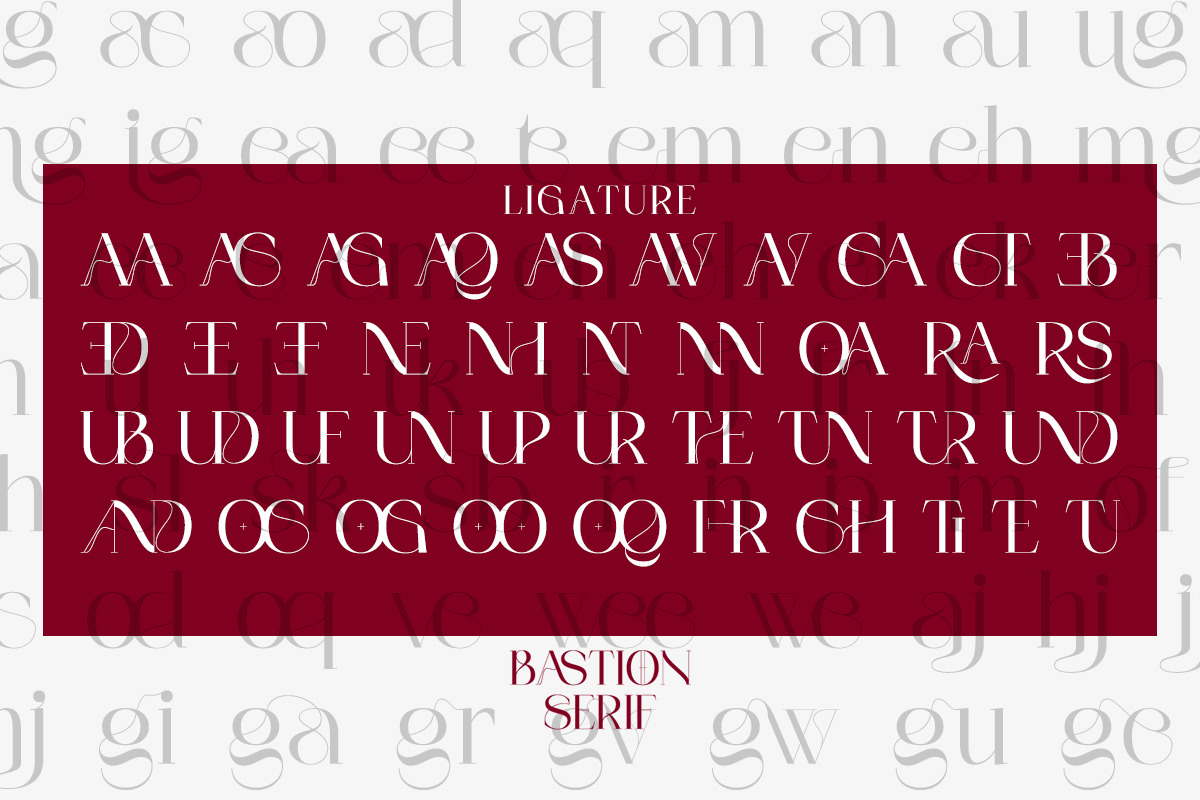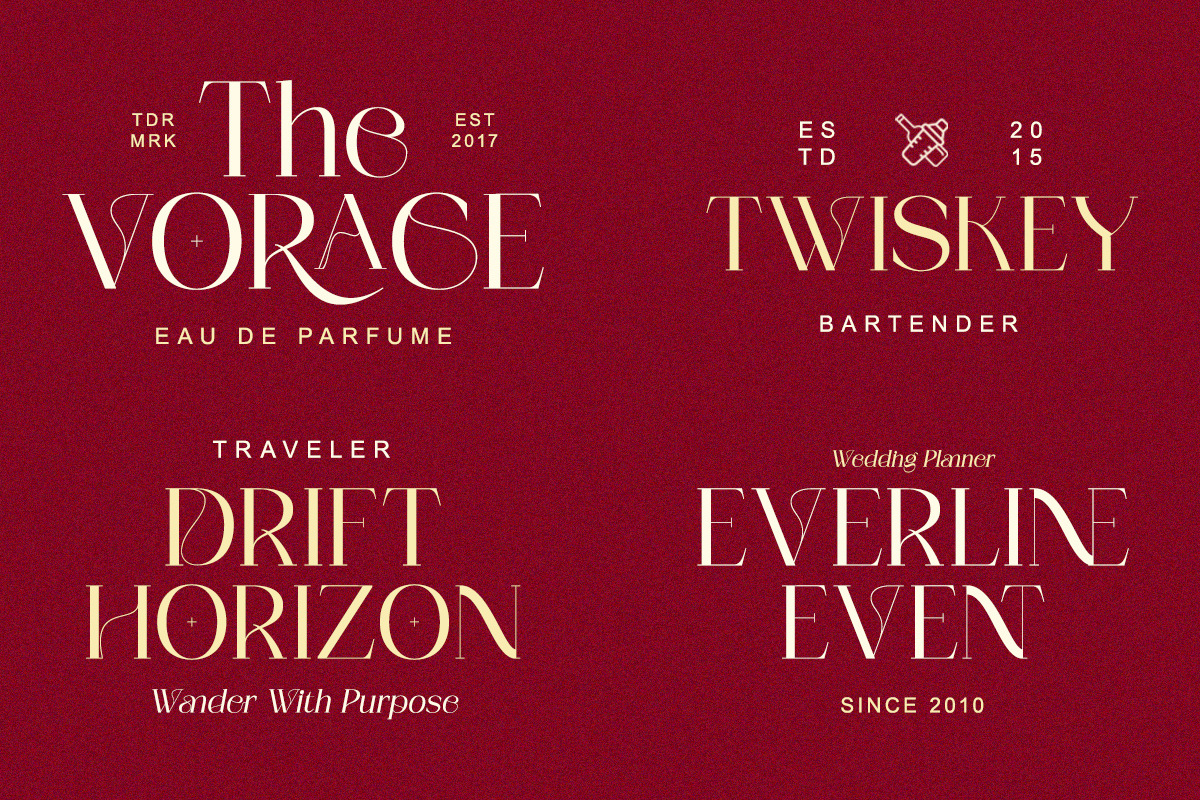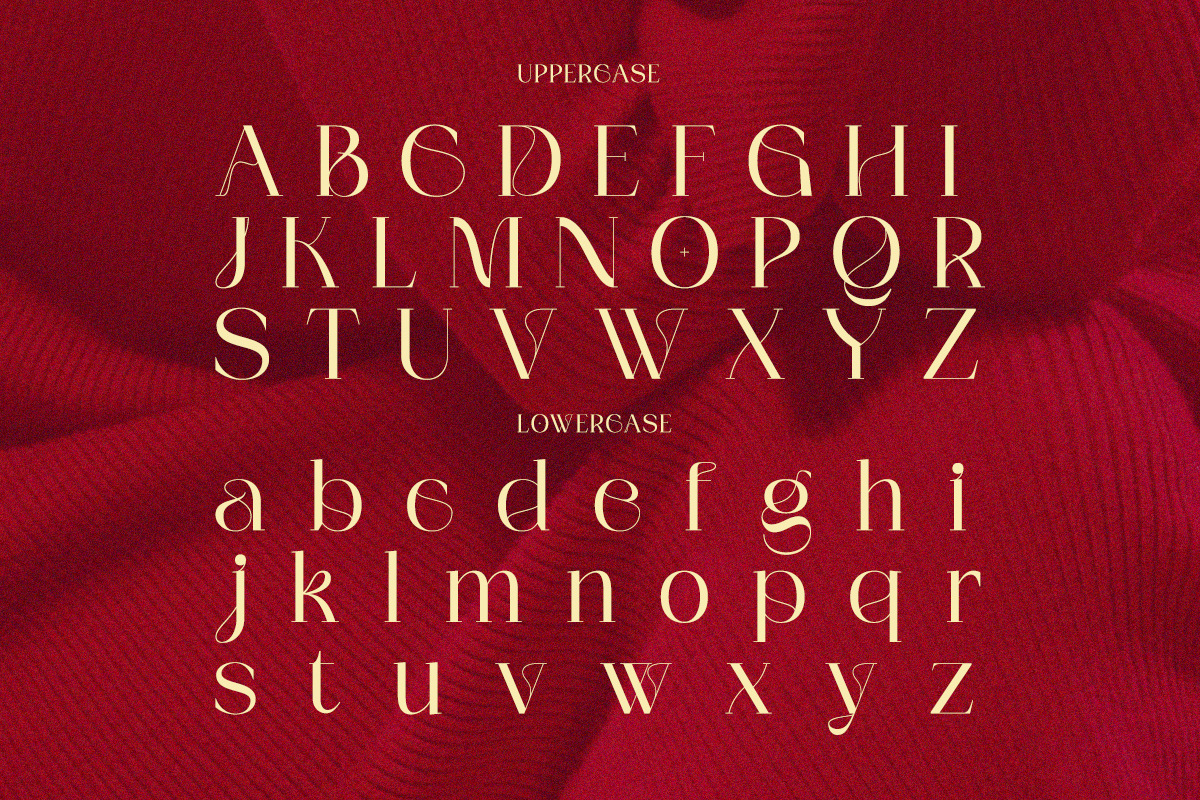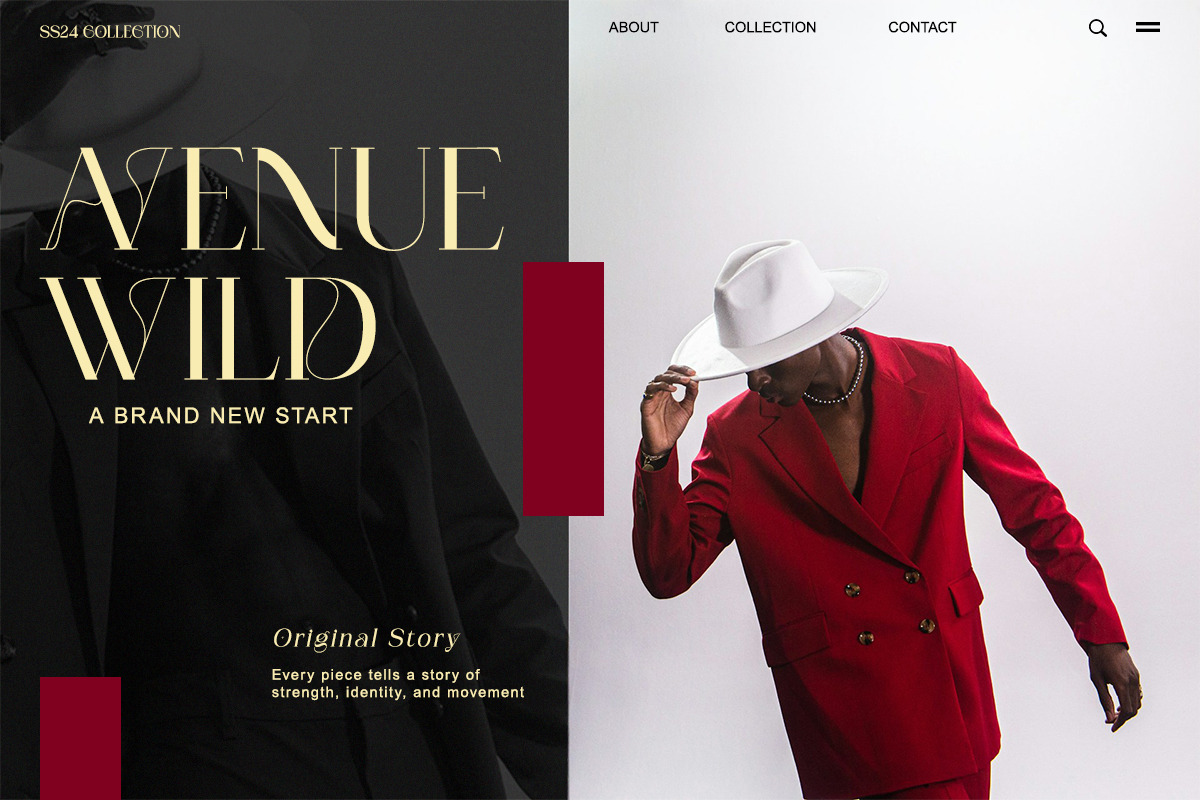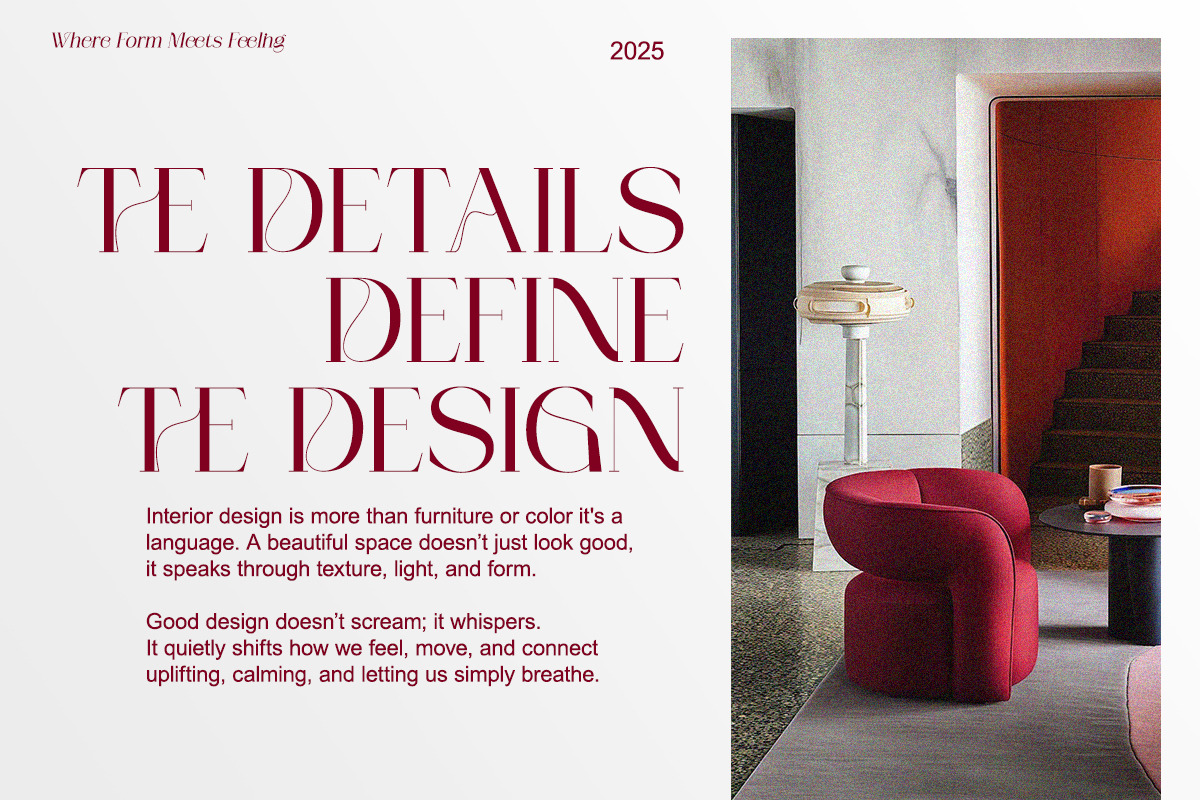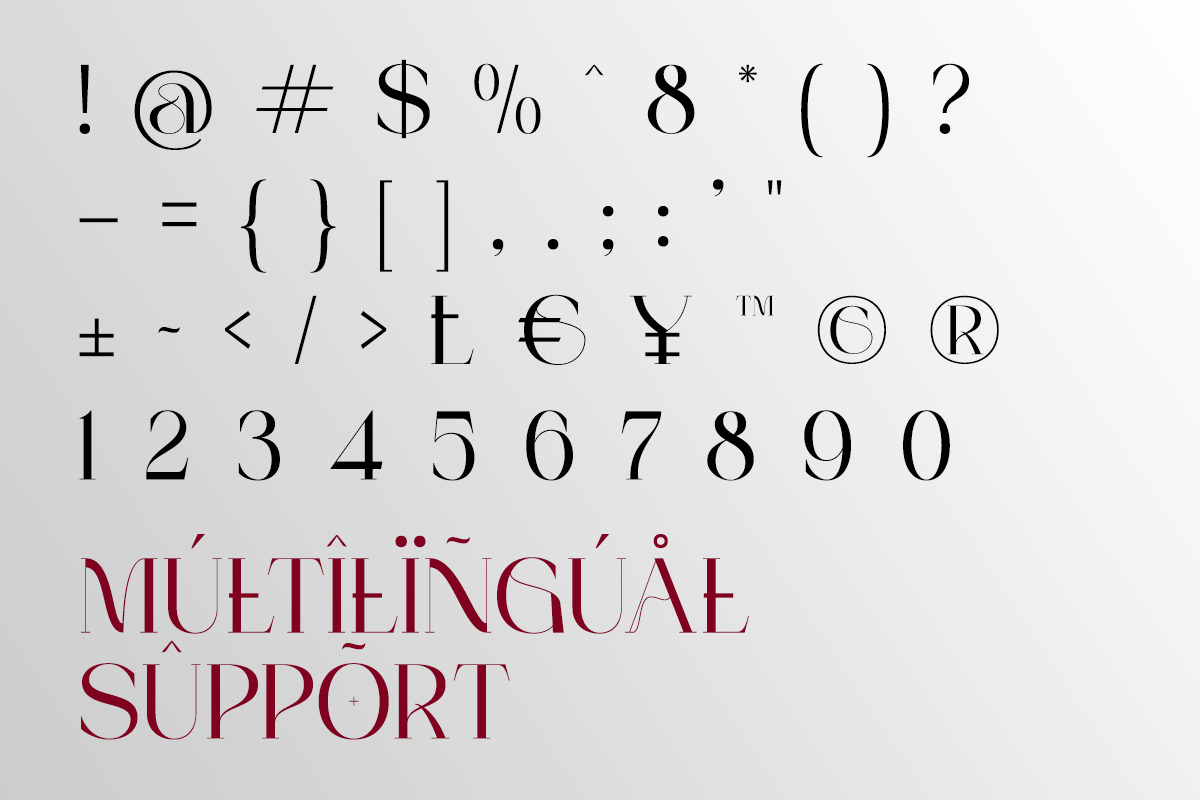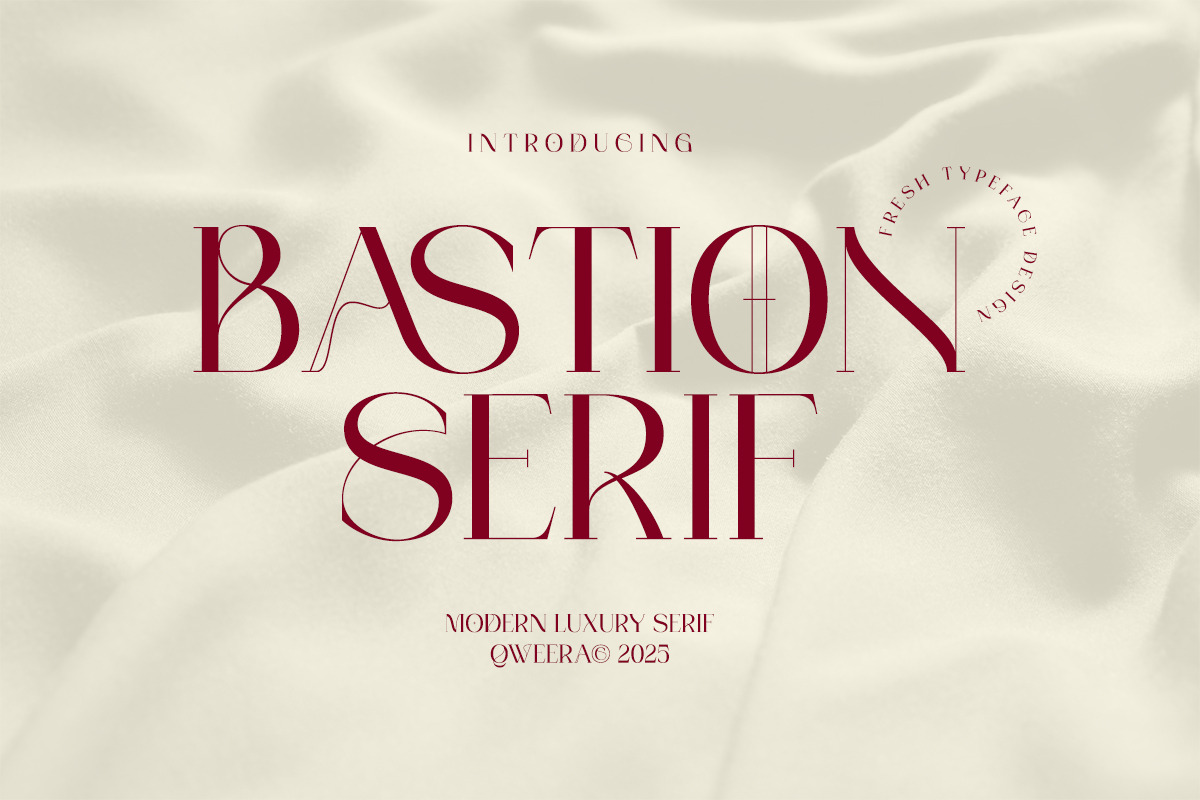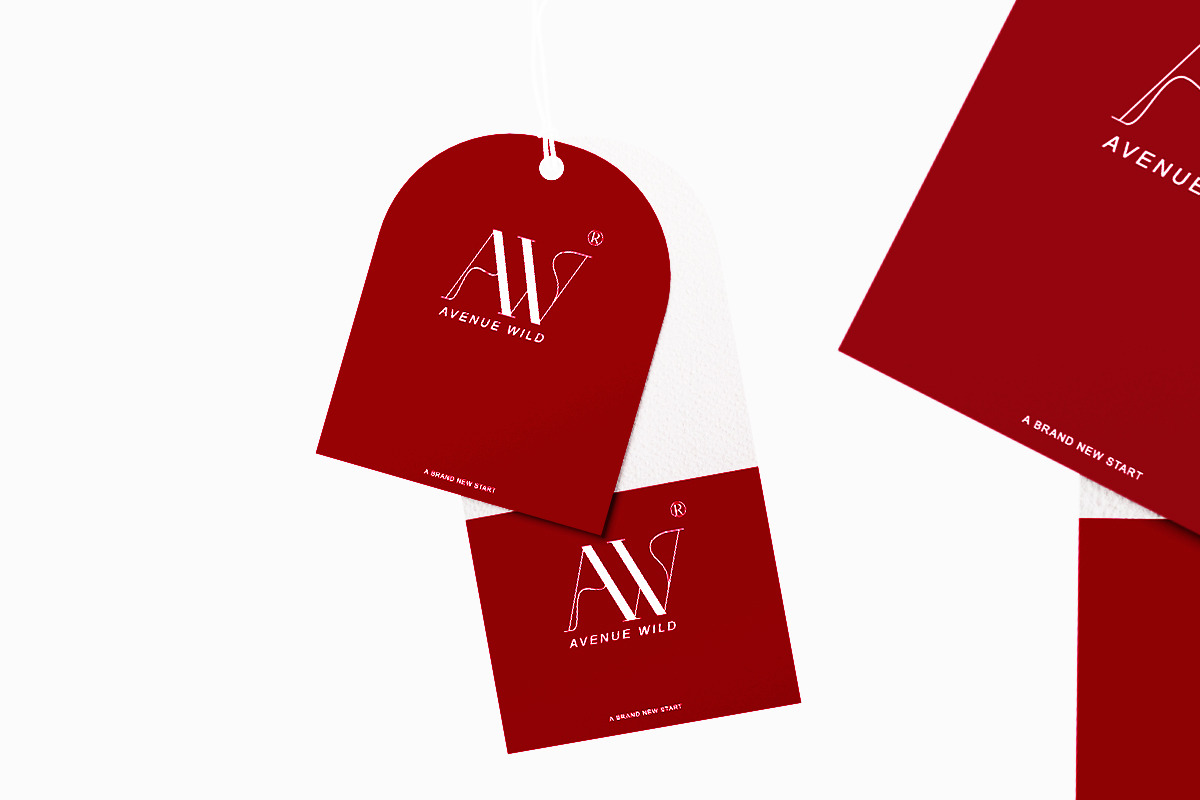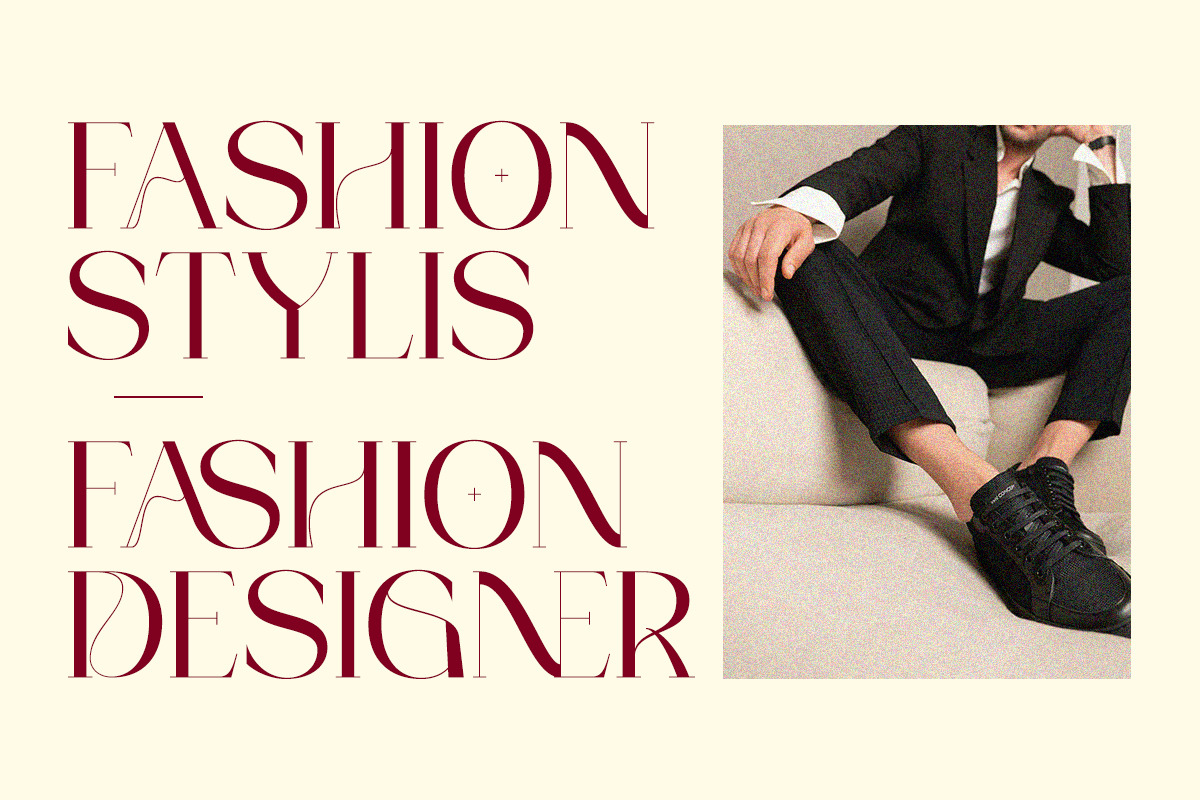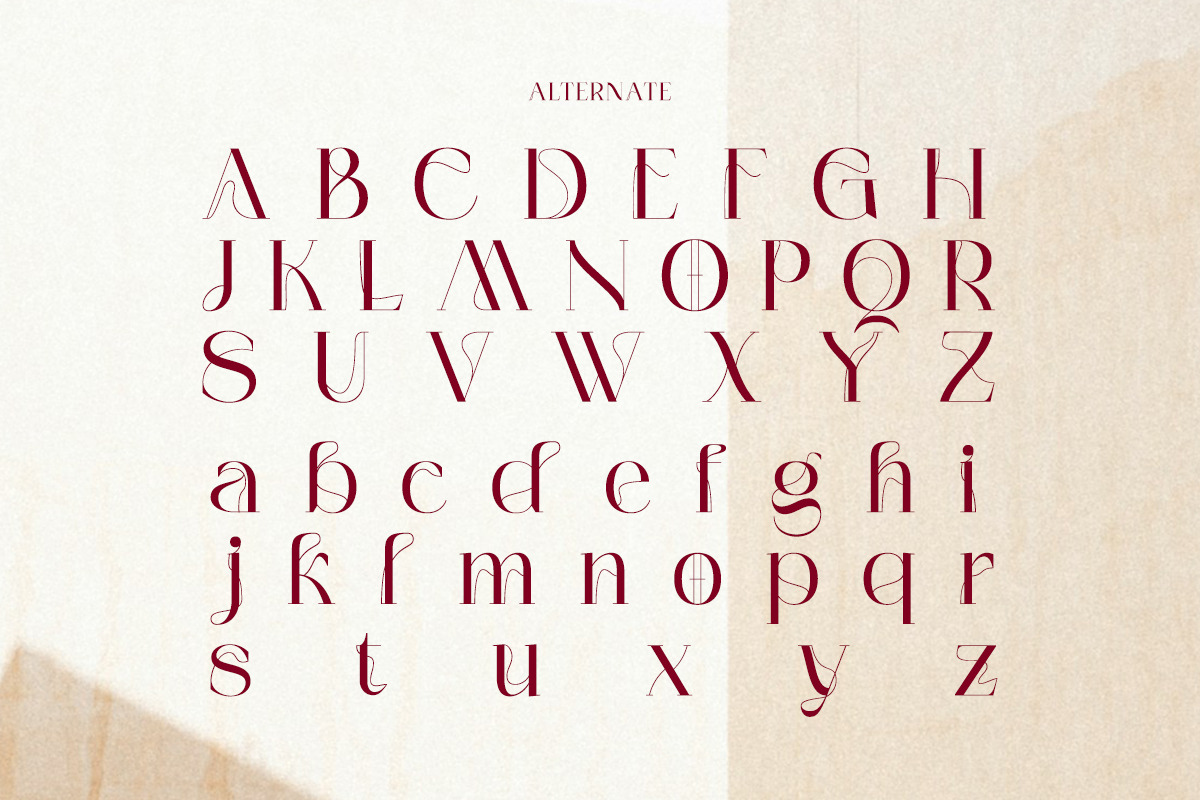
Bastion Serif - Modern Elegant Font
Introducing Bastion Serif – Modern Elegant Branding Font, a sophisticated typeface that blends modern minimalism with timeless luxury. With its sharp serifs, refined curves, and stylish letterforms, Bastion Serif delivers a powerful yet graceful look for premium design projects.
This font is crafted for designers who need a versatile and stylish serif for branding, fashion editorials, high-end packaging, social media, and logos. Its unique character details make every word stand out with elegance and authority.
Equipped with alternates, ligatures, and multilingual support, Bastion Serif ensures both creativity and functionality in every project.
Elevate your typography and give your designs a touch of modern prestige with Bastion Serif.
✨ Font Features
- Regular & Italic
- Alternates & ligatures
🎯 Perfect For
- Branding & logo design
- Fashion magazines
- Elegant packaging
- Editorial layouts
- Social media templates
- Invitations & luxury prints